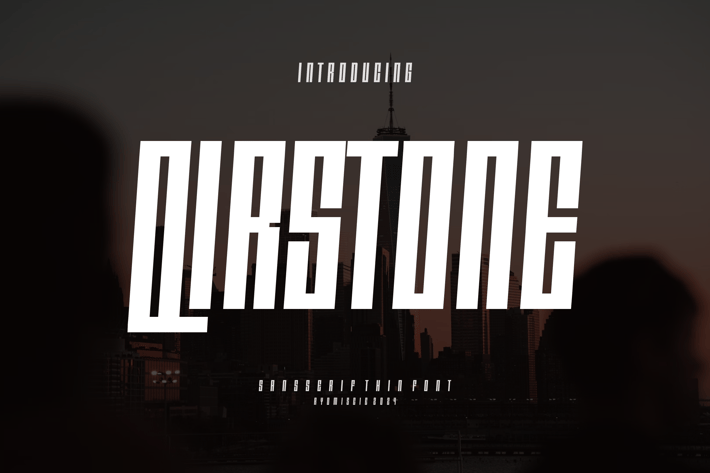
Qirstone - Modern Sans Font
Introducing our new product Qirstone Font - Modern Font
Qirstone Font- Modern Font is a bold and authentic display font. The font is suitable for any branding project like logo,
t-shirt printing, esport, and many more. outstanding in a wide range of contexts.
* Qirstone Uppercase